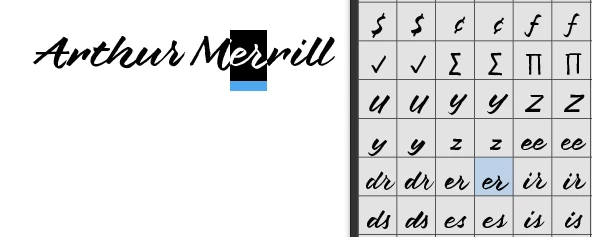
Possible Typeface Error
I believe there is an error with the Brushland typeface. When I type a name with two of the letter 'R' it gives two different types of the letter. It happens when one r is in the first name and the other is in the last name also. It does not appear to happen with other letters. Is this just how the brushland shows letters or should this be fixed?
It's how the font is designed. Fonts often have what are called Glyphs, or alternate characters. For exaample, when -er, -or, -ur, -th and other combinations of letters meet. I had a look in Illustrator at the Glyphs for Brushland and there are quite a lot - here's the one for the -er combination, which is why the second -r is different in Merrill.